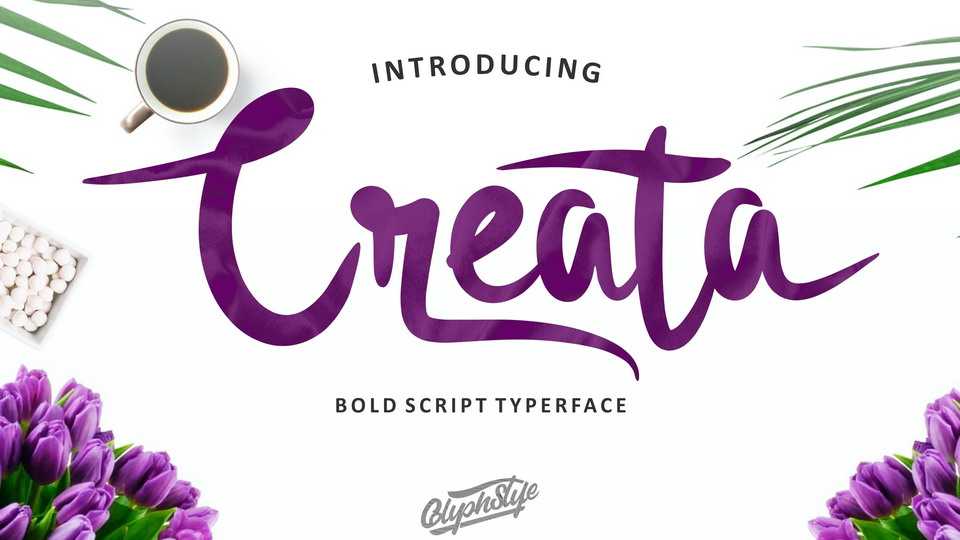
Download Creata font, a bold and smooth hand painted script with a modern feel. Creata is great for notes, quotes, cards, t-shirt prints and other crafts.